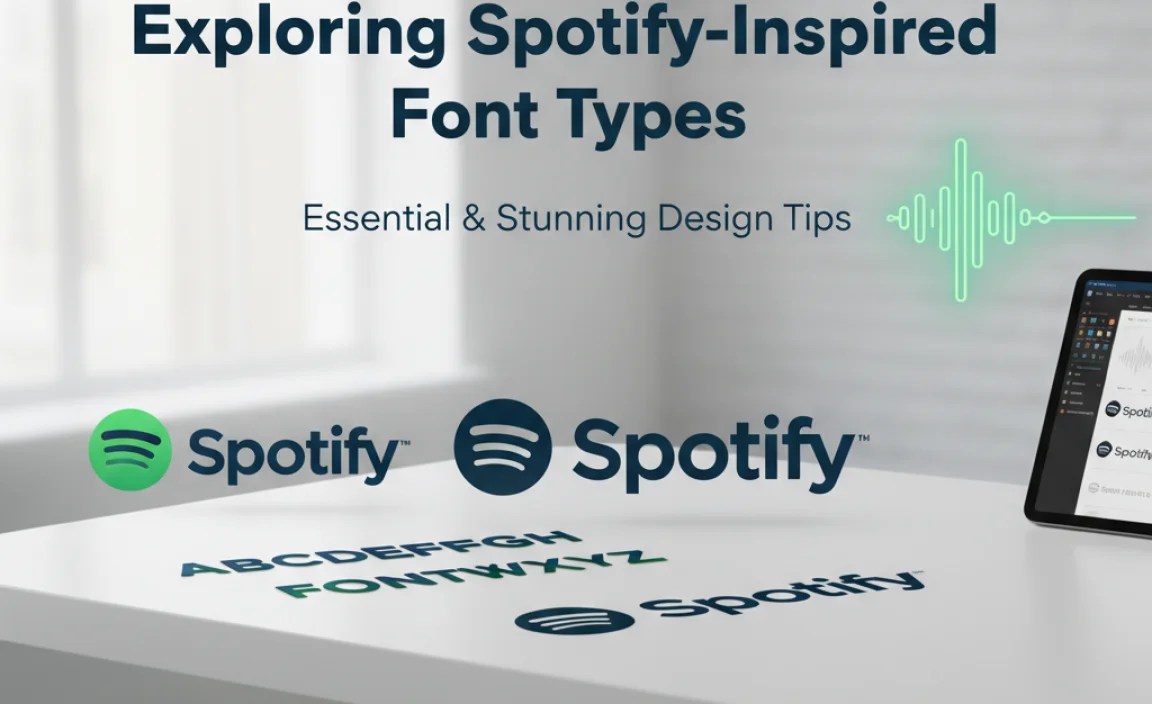
Choosing the right font for your brand is crucial, and Spotify’s font is a great inspiration for creating a modern, clean, and engaging look. This guide will help you understand the power of the Spotify font and how to use similar typography for stunning design results. Learn about font choices, pairings, and design principles to elevate your visual identity.
Ever scrolled through Spotify, admiring its clean interface and easy-to-read artist names and song titles? The magic behind that seamless experience often comes down to brilliant typography. Choosing the right font can feel overwhelming, but understanding what makes a font successful, like Spotify’s, can make all the difference. Don’t worry if you’re new to this; we’ll break down the essentials in simple, creative terms.
This guide is your friendly mentor to navigating the world of fonts. We’ll explore the principles behind Spotify’s typeface choice and show you how to apply those lessons to your own projects. Get ready to discover how a well-chosen font can transform your designs from ordinary to extraordinary, making your message clear and your brand unforgettable. Let’s dive in and unlock the secrets to stunning typography!
Understanding Spotify’s Font Philosophy
Spotify’s brand identity is built on clarity, accessibility, and a modern, slightly playful feel. Their typographical choices reflect this perfectly. They’ve evolved over time, but the core principles remain: readability is paramount, and the font should feel current and approachable.
The platform primarily uses a clean, geometric sans-serif font. This type of font is known for its simple, unadorned letterforms, making it incredibly easy to read at various sizes, from tiny album titles on a mobile screen to large promotional banners.
Think of a sans-serif font as a friendly, straightforward communicator. It doesn’t have decorative ‘feet’ (serifs) sticking out of its letters, which can sometimes clutter text, especially on digital screens. This makes it ideal for interfaces, headings, and body text where clarity is key.
Why Sans-Serif Works So Well for Spotify
- Readability on Screens: Digital displays, especially at smaller resolutions, benefit immensely from the clean lines of sans-serif fonts. They render sharply and avoid pixelation issues that can plague more complex fonts.
- Modern Aesthetic: Sans-serif fonts are widely associated with contemporary design. They convey a sense of efficiency, innovation, and a forward-thinking brand personality, which aligns perfectly with Spotify’s position as a leading tech company.
- Versatility: A good sans-serif can handle a wide range of applications. It looks great as a bold heading, a legible paragraph, or even as part of graphic elements.
- Brand Consistency: By sticking to a consistent, well-chosen font family, Spotify ensures its brand appears cohesive across its app, website, marketing materials, and more.
The “Spotify Font” – A Closer Look
While Spotify has used and adapted various typefaces throughout its history, the most prominent font family that captures its essence is a modern geometric sans-serif. These fonts are characterized by their clean, circular forms and consistent stroke widths.
For many years, Spotify heavily utilized a custom font called “Circular.” While this font isn’t publicly available, its design characteristics are representative of a specific genre of sans-serifs that are excellent for UI (User Interface) design. These fonts aim for a balance between geometric precision and humanistic warmth.
When we talk about the “Spotify font,” we’re often referring to the style and feeling it evokes: clean, legible, modern, and friendly. If you’re looking to capture that vibe, you’ll want to explore fonts that share these traits.
Key Characteristics of This Font Style:
- Geometric Shapes: Think perfect circles for ‘o’, ‘e’, and ‘c’, and straight lines for ‘i’, ‘l’, and ‘t’.
- Open Counters: The inner spaces within letters like ‘o’, ‘a’, and ‘p’ are generous, improving legibility.
- Balanced Weight: Typically available in multiple weights (light, regular, medium, bold), allowing for clear hierarchy in design.
- Simple, Uncomplicated Forms: No fussy flourishes or overly stylized strokes.
Essential Design Tips Inspired by Spotify
Learning from Spotify’s font choices is about more than just picking a similar typeface. It’s about understanding the why behind their decisions and applying those principles to your own design challenges.
1. Prioritize Readability Above All Else
This is Spotify’s golden rule. Whether it’s a song title, an artist’s name, album art details, or a lengthy blog post, the text must be immediately understandable. For beginners, this means avoiding overly decorative or condensed fonts for body text. Opt for fonts with clear letterforms and sufficient spacing.
Quick Tip: Test your chosen font at different sizes, especially small ones, on various devices. If it becomes difficult to read, it’s not the right fit for that purpose.
Mistake 5: Not Using Sufficient Contrast
Ensure there’s enough contrast between your text color and background color. This is crucial for accessibility and readability, especially for users with visual impairments. Tools like the Web Content Accessibility Guidelines (WCAG) provide standards for contrast ratios. You can check contrast with free online tools like WebAIM’s Contrast Checker.